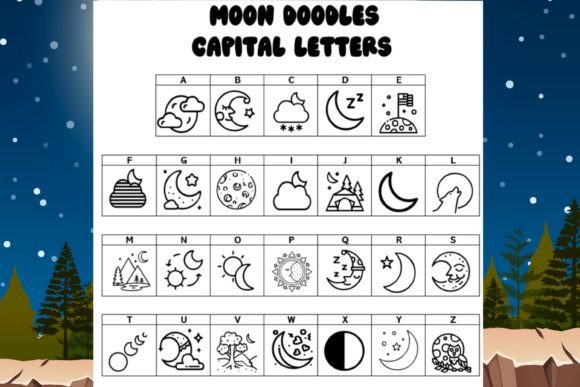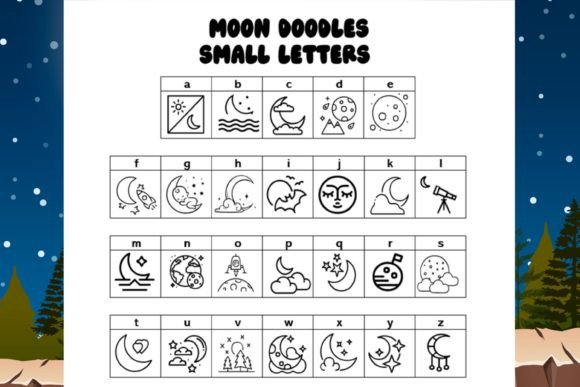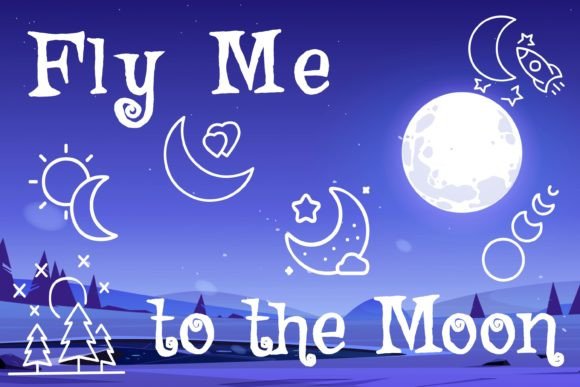
Introduction to Moon Song Font
As I sat in my studio, surrounded by scraps of paper and colorful markers, I couldn’t help but feel inspired by the full moon shining brightly through the window. It’s moments like these that spark creativity and remind us of the beauty in the world around us. The Moon Song Font is the perfect reflection of that magic, offering a unique and enchanting design resource for any creative project.
With 52 adorable doodles featuring moon images, this high-quality font is a treasure trove of inspiration for designers, artists, and crafters alike. From greeting cards to social media posts, the Moon Song Font is a versatile tool that can elevate any design with its whimsical charm. Whether you’re looking for a free download to enhance your creative project or simply want to add a touch of lunar magic to your work, this font is a must-have.
And the best part? The transparent background of the Moon Song Font makes it easy to combine with your existing designs, allowing you to create something truly unique and special.
Key Features of Moon Song Font
- High-quality, elegant design perfect for creative projects and presentations.
- Available in a transparent background option, ideal for use on videos, animations, and other multimedia content.
- Resolution-independent, scalable design allows for use in a wide range of sizes and resolutions.
- Unique, handcrafted style with intricate details, making it a valuable resource for designers and artists.
- Perfect for use in digital art, graphic design, and creative projects where a touch of elegance and sophistication is desired.
- Supports a wide range of languages, making it a versatile design resource for international projects.
Honest Review: Moon Song Font
I recently stumbled upon the Moon Song Font, and I must say it’s a fantastic addition to my design resources. As a designer, I’m always on the lookout for high-quality fonts that can elevate my creative projects.
The Moon Song Font is a beautifully crafted font that features a transparent background, making it perfect for designers who want to create stunning visual effects. ✨ One of the things I love about this font is its versatility – it can be used for a wide range of creative projects, from logos to brochures.
- Transparent background for creative effects
However, I do have a few minor complaints about the Moon Song Font. ⚠️ The font is only available in a limited number of weights, which may not be suitable for designers who need a wide range of styles for their project.
Overall, I’m really impressed with the Moon Song Font. It’s a great design resource that can help take your creative projects to the next level. If you’re looking for a high-quality font with a transparent background, I highly recommend giving the Moon Song Font a try.
The Moon Song Font is suitable for a variety of creative projects, including wedding invitations, birthday cards, and social media graphics. It’s also a great choice for designing logos and branding materials.
To get the most out of the Moon Song Font, experiment with different font sizes, colors, and styles to create a unique look. You can also combine the font with other design elements, such as images and shapes, to add depth and interest to your design.
While the Moon Song Font is designed to be versatile, it’s not recommended to modify or customize the font in any way. Doing so may affect the font’s overall quality and compatibility. Instead, consider using the font in its original form or exploring other customization options through your design software.